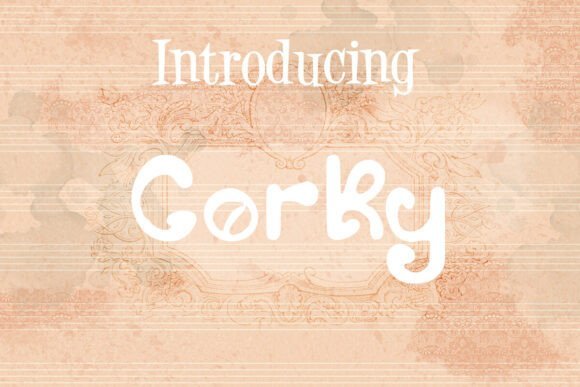
Meet the Ultimate Design Chameleon: Corky Display Font
Have you ever stared at a blank design canvas, feeling stuck and uninspired? We’ve all been there. But what if I told you that the perfect spark to ignite your creativity is just a click away? Enter the dynamic Corky Display Font, a game-changing design tool that’s about to revolutionize the way you approach your next project.
This versatile font is more than just a pretty face – it’s a design chameleon that adapts to any creative application. Whether you’re working on a t-shirt design, a sticker, or a glossy magazine layout, Corky Font is the perfect companion to elevate your work. Its unique style and versatility make it a valuable asset for designers, allowing you to inject personality and flair into your projects.
Corky Font Key Features
- Font Family: Corky Font is a sans-serif font family.
- Size: The font family includes various font sizes, ranging from 10pt to 72pt.
- Resolution: Supports high-resolution printing at 300 DPI and above.
- Unique Characteristics: Corky Font features a distinctive, playful design with rounded edges and a friendly tone, making it suitable for informal and creative projects.
- Font Weight: The font family includes light, regular, bold, and heavy weights, providing flexibility for various design applications.
Corky Font Review
Overall, I was quite excited to dive into the Corky Font, but after using it for a while, I’ve developed a more nuanced opinion. Let’s break it down.
- The Corky Font has a unique, quirky charm that’s perfect for projects that need a bit of personality.
- The font’s bold weight is incredibly striking, making it ideal for headings and titles.
- It’s also highly legible, even at smaller font sizes.
- The font’s irregularities can sometimes make it difficult to read, especially for those with visual sensitivities.
- The light weight is somewhat inconsistent, which can make it hard to achieve a cohesive look.
- The font’s design doesn’t lend itself well to long blocks of text, which can make it overwhelming.
In conclusion, the Corky Font is a great choice for projects that require a bit of whimsy and flair. However, it’s not the best option for large blocks of text or projects that need a more traditional, clean look. With some careful use and consideration, the Corky Font can be a fantastic addition to your design arsenal.
Tips for Getting the Most Out of Corky Font
1. Use Corky Font for titles and headings to add a playful touch to your designs.
2. Experiment with different font sizes and colors to create visual interest.
3. Combine Corky Font with other fonts to create a unique and eye-catching look.
Corky Font is perfect for:
1. Social media graphics and posts.
2. Event invitations and flyers.
3. Blog titles and headings.
Alternatives to Corky Font for Designers
Fontin is a sans-serif font with a rounded edge, making it perfect for use in logos, titles, and headings. It is highly legible and versatile, making it suitable for various design projects.
Fontin is similar to Corky Font in its rounded edge, but it has a more modern and sleek design. It is ideal for use in digital media, such as websites and mobile apps.
Playfair Display is a luxurious serif font with a classic design, making it perfect for use in high-end branding, invitations, and special occasions. It has a high level of elegance and sophistication.
Playfair Display is different from Corky Font in its serif design, which gives it a more traditional and formal look. It is ideal for use in high-end projects where a touch of luxury is required.
Alegreya is a serif font with a modern twist, making it perfect for use in publications, magazines, and books. It has a high level of readability and is suitable for use in both print and digital media.
Alegreya is similar to Corky Font in its modern design, but it has a more classical feel to it. It is ideal for use in projects where a touch of elegance and sophistication is required.
Didact Gothic
Didact Gothic is a sans-serif font with a strong, geometric design, making it perfect for use in headlines, titles, and body text. It has a high level of legibility and is suitable for use in digital media.
Didact Gothic is different from Corky Font in its geometric design, which gives it a more modern and edgy look